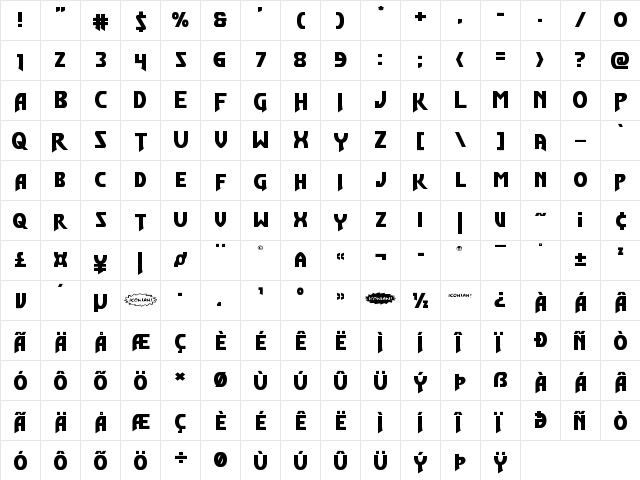
Flash Rogers Straight Expanded Expanded
Design Context for Flash Rogers Straight Expanded Typeface
Flash Rogers Straight Expanded is a composed and adaptable typeface that performs quietly and consistently across a wide range of design contexts.